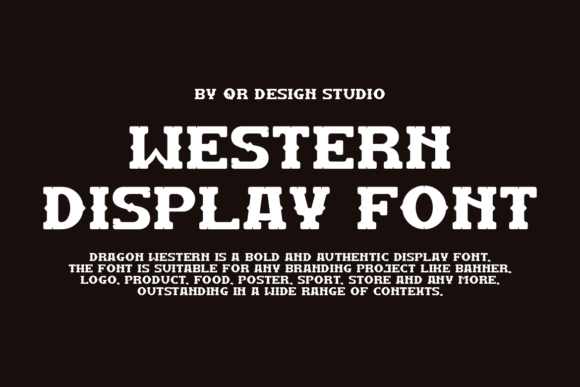
Dragon Western Font
Dragon Western is a bold and assertive sans serif font. No matter the topic, this font will be an incredible asset to your fonts’ library, as it has the potential to elevate any creation.